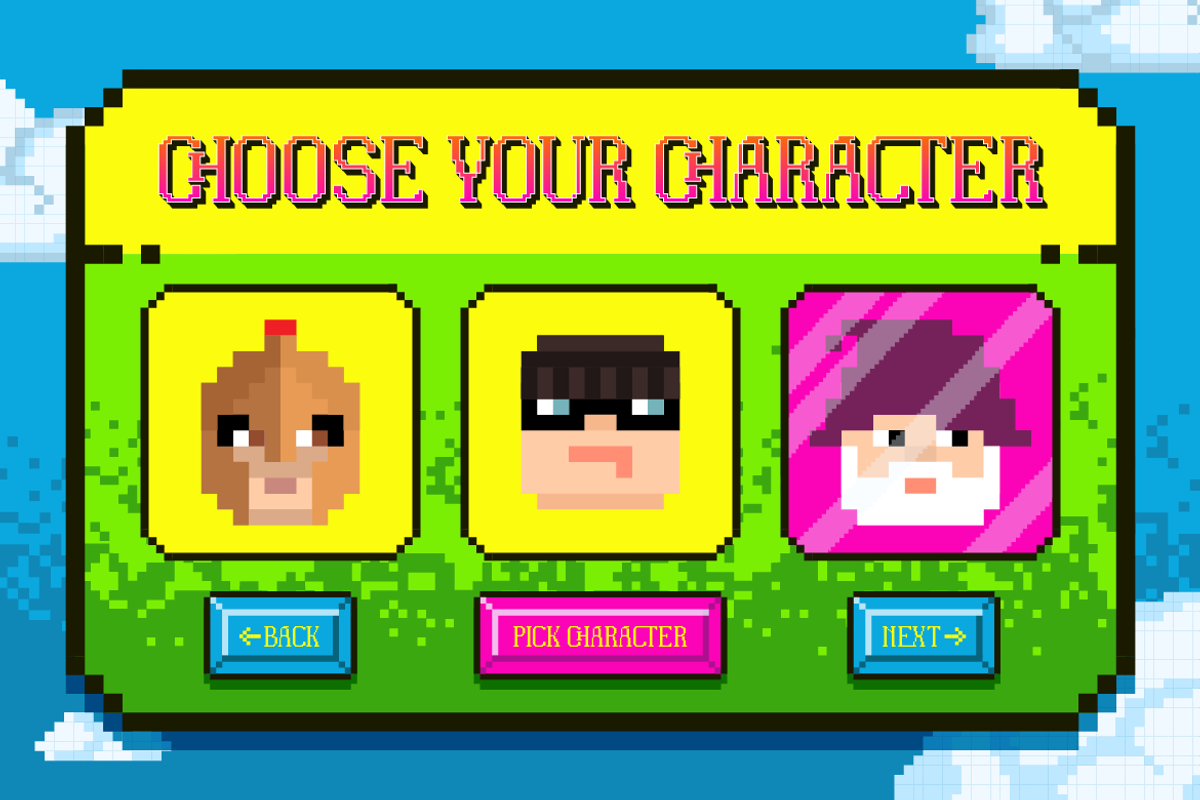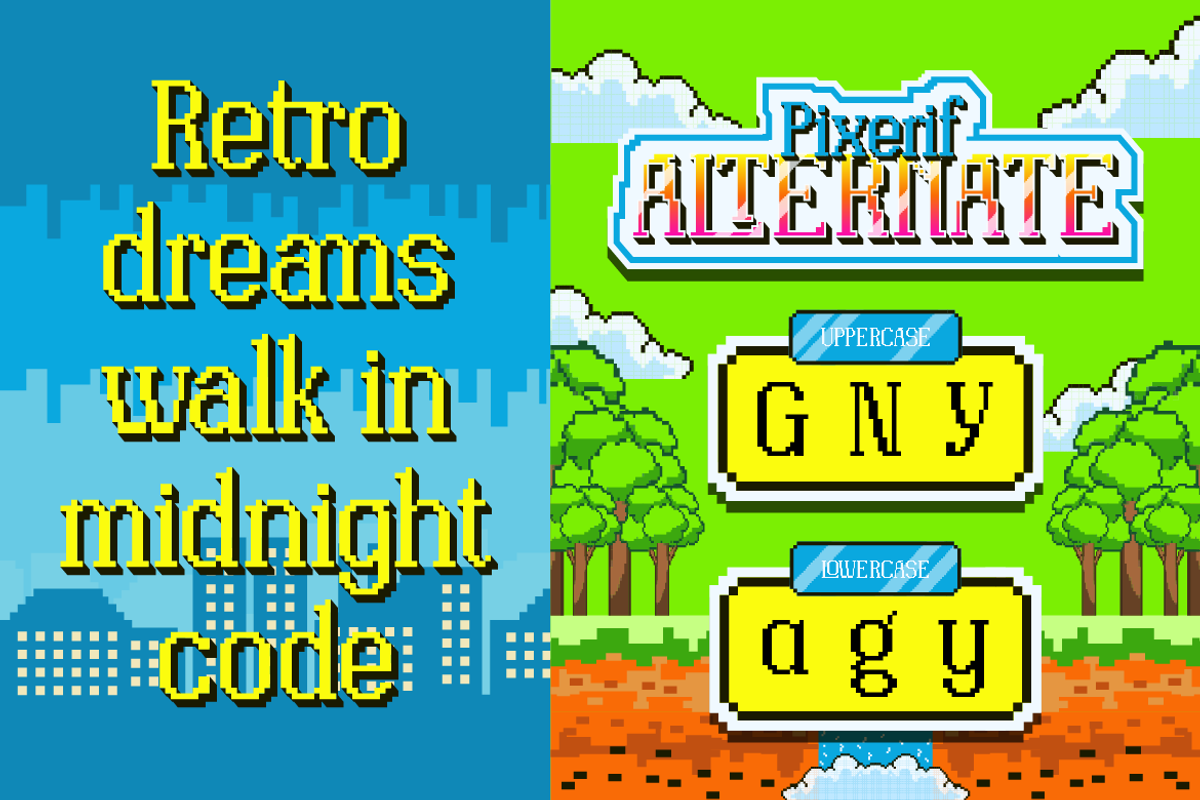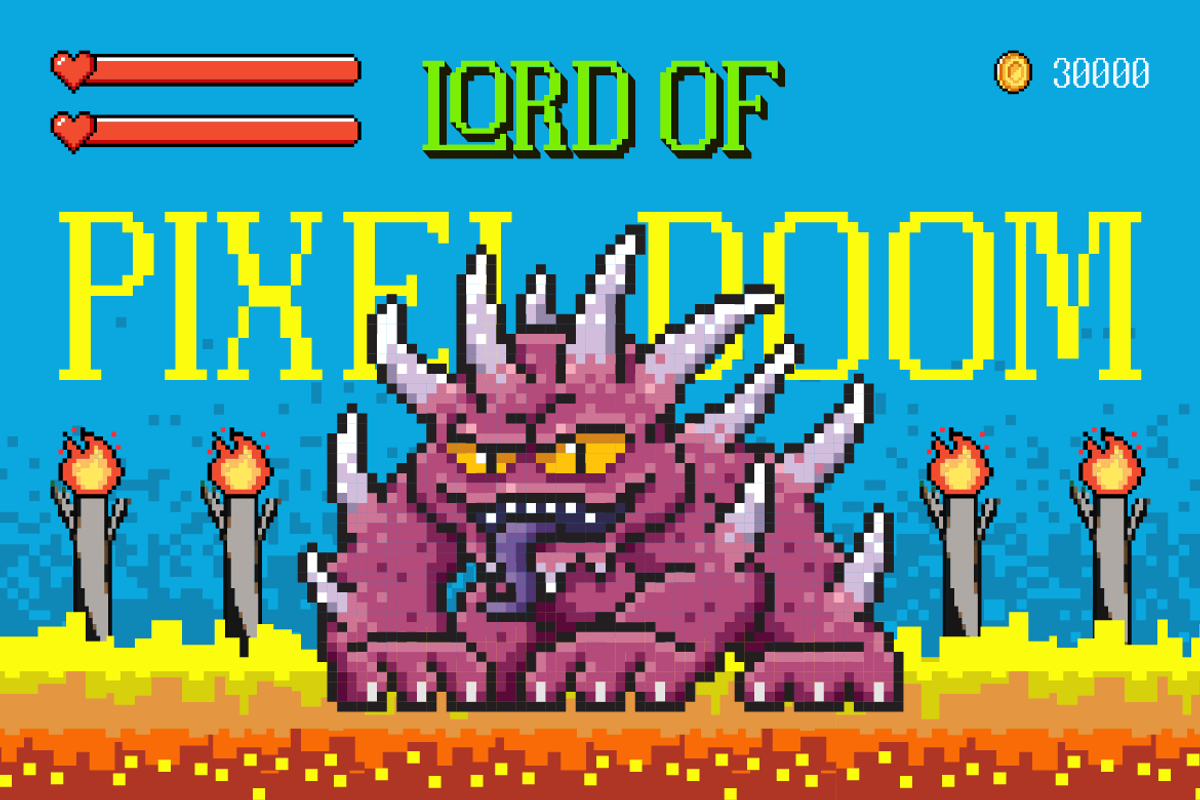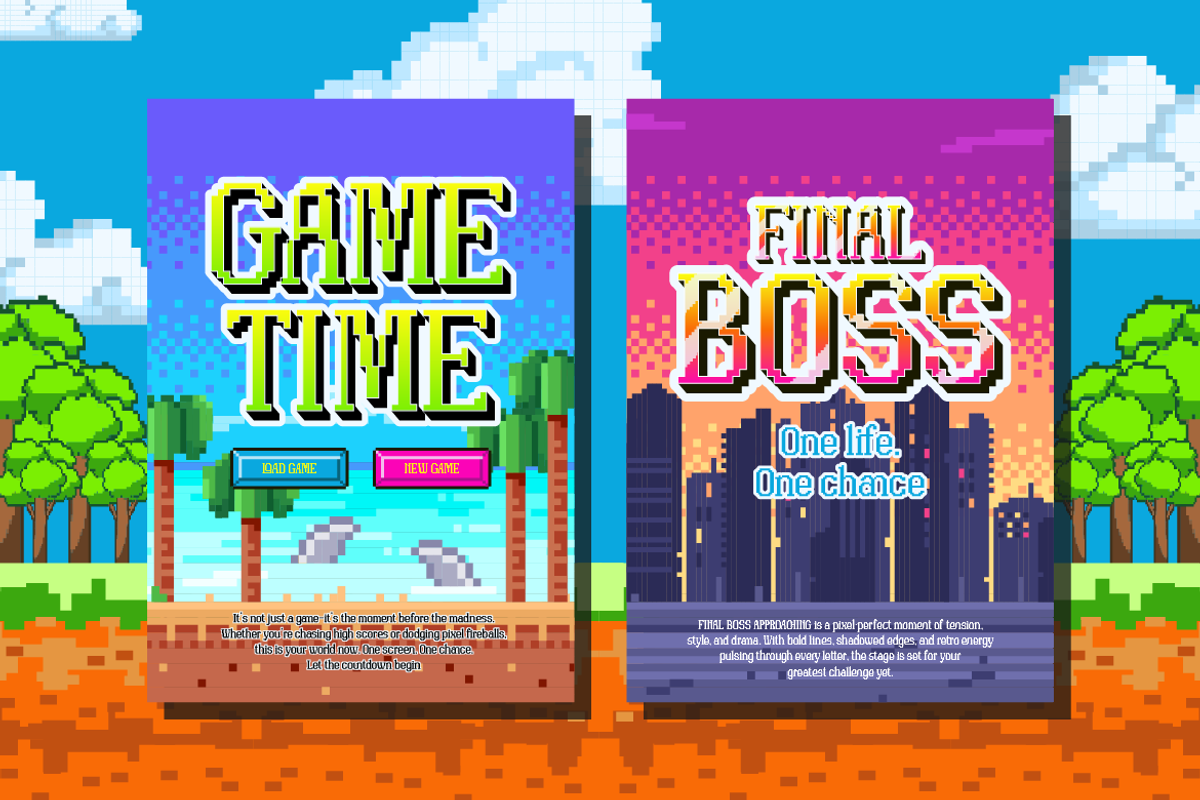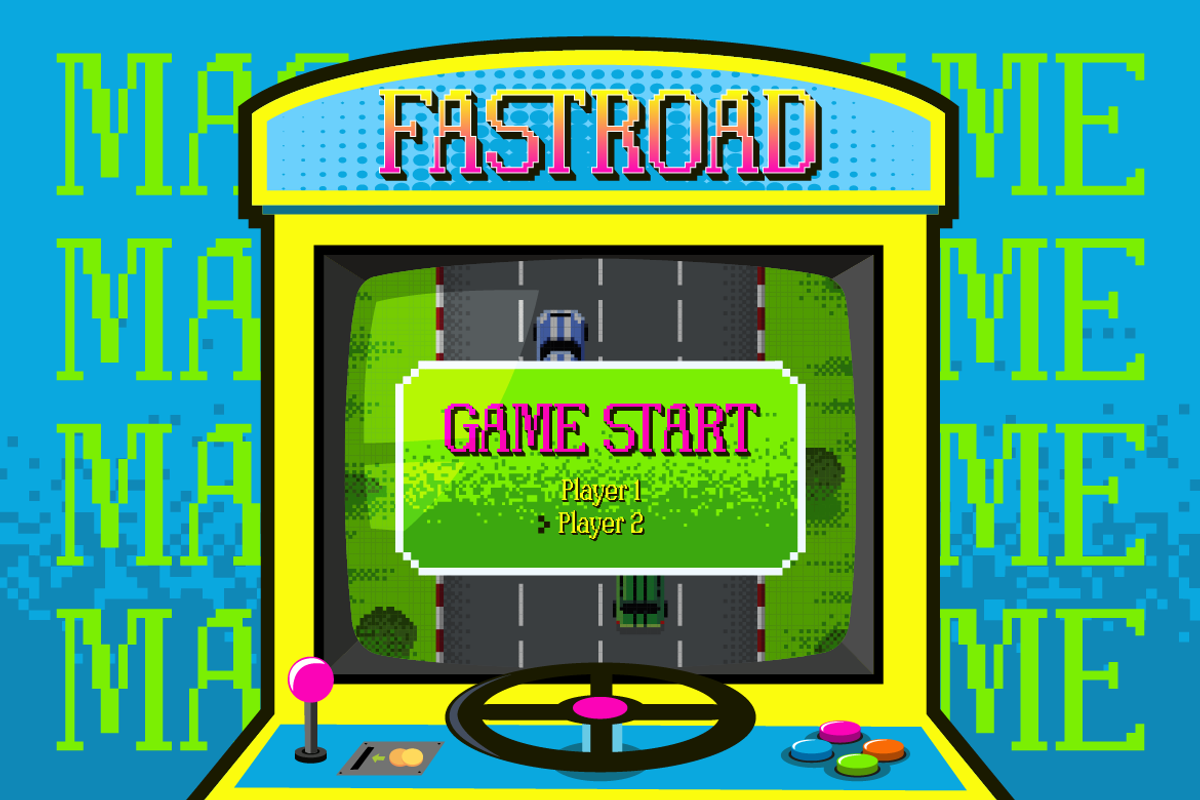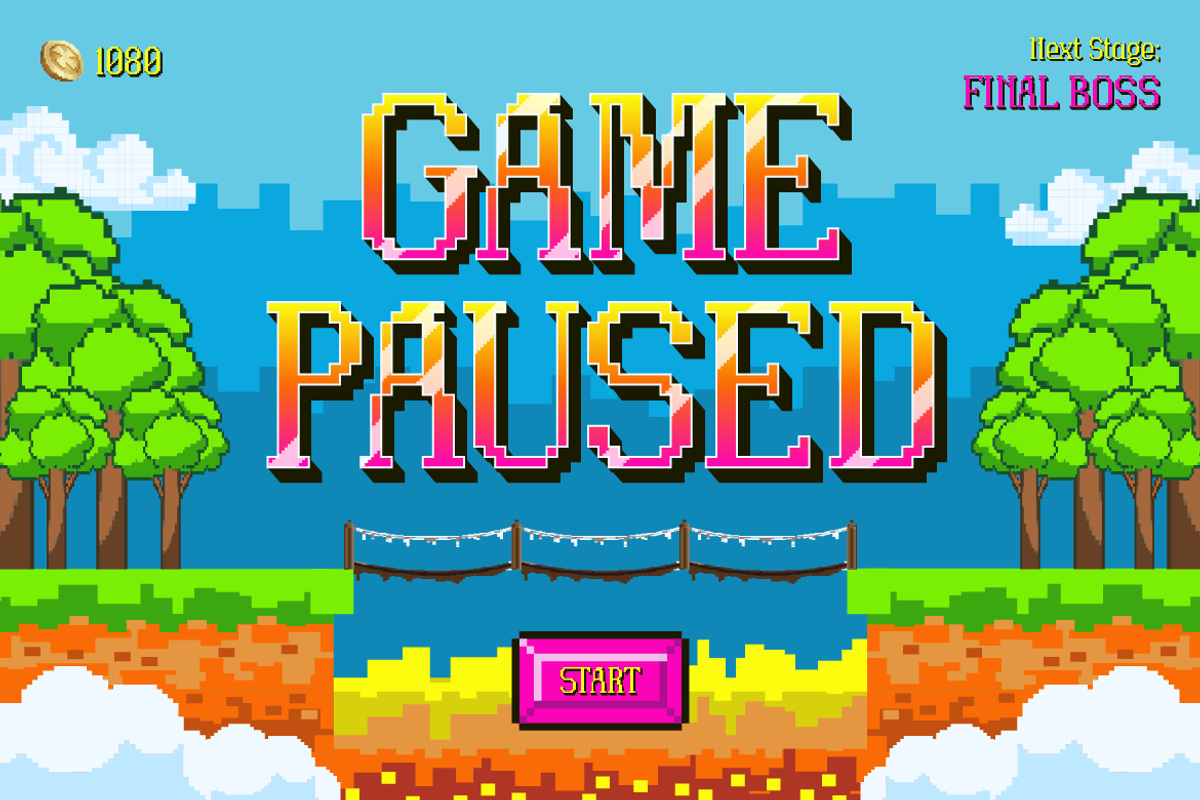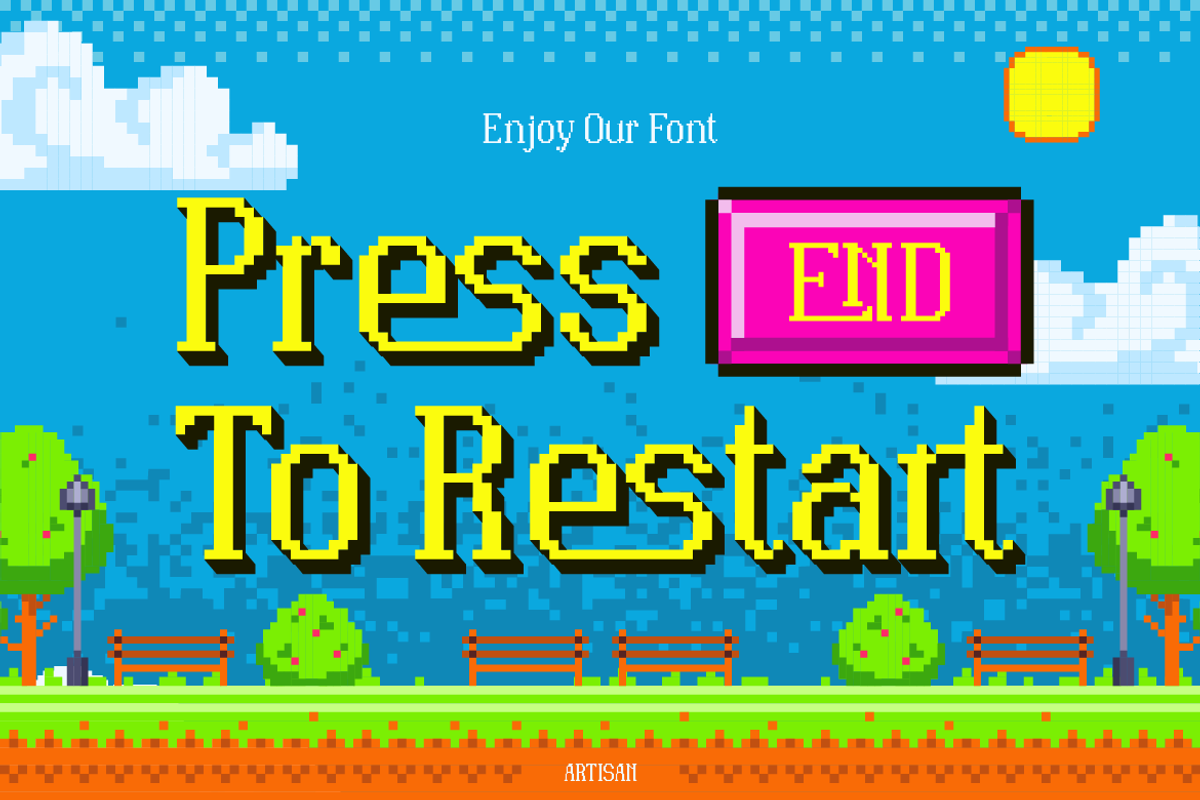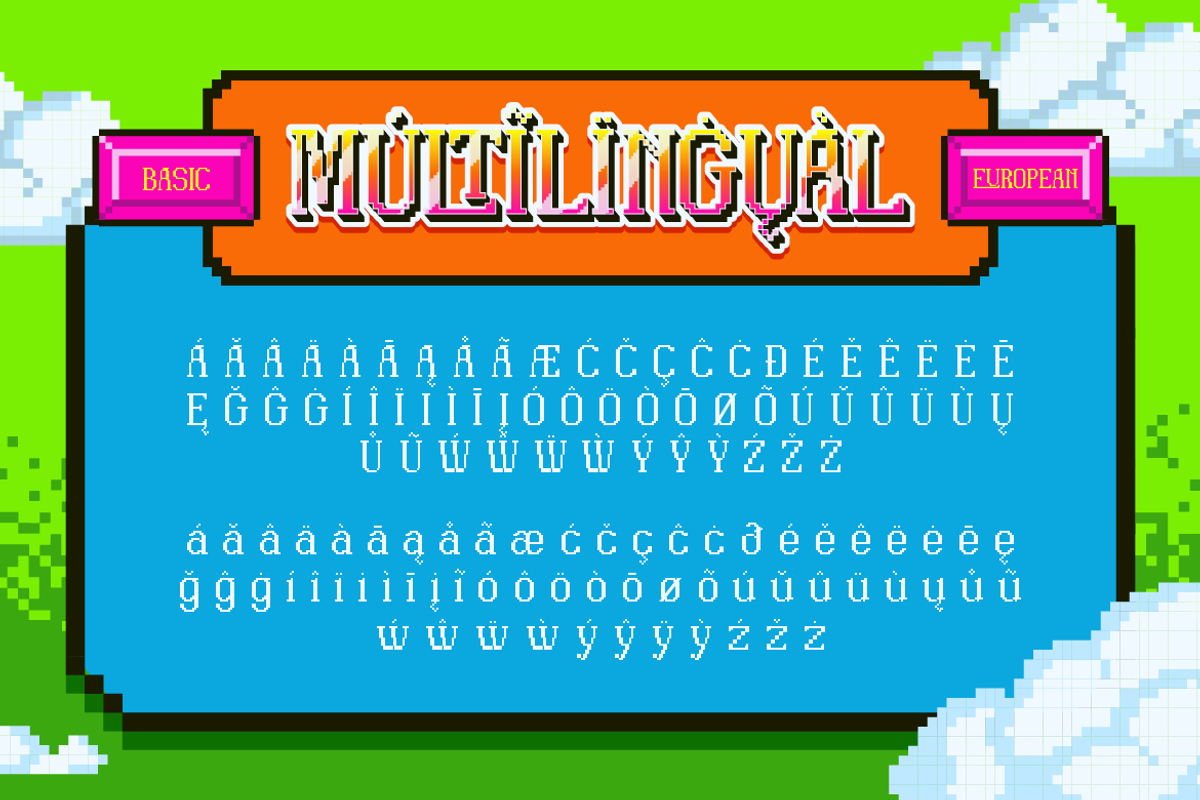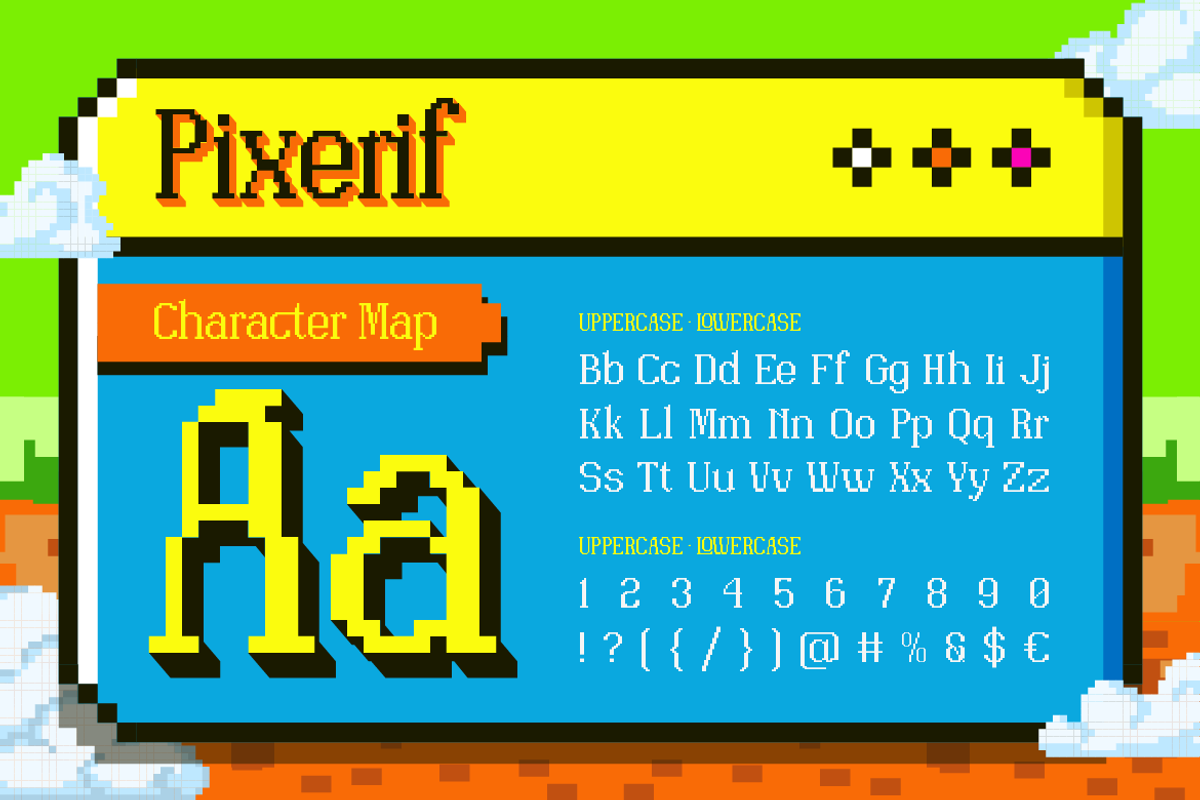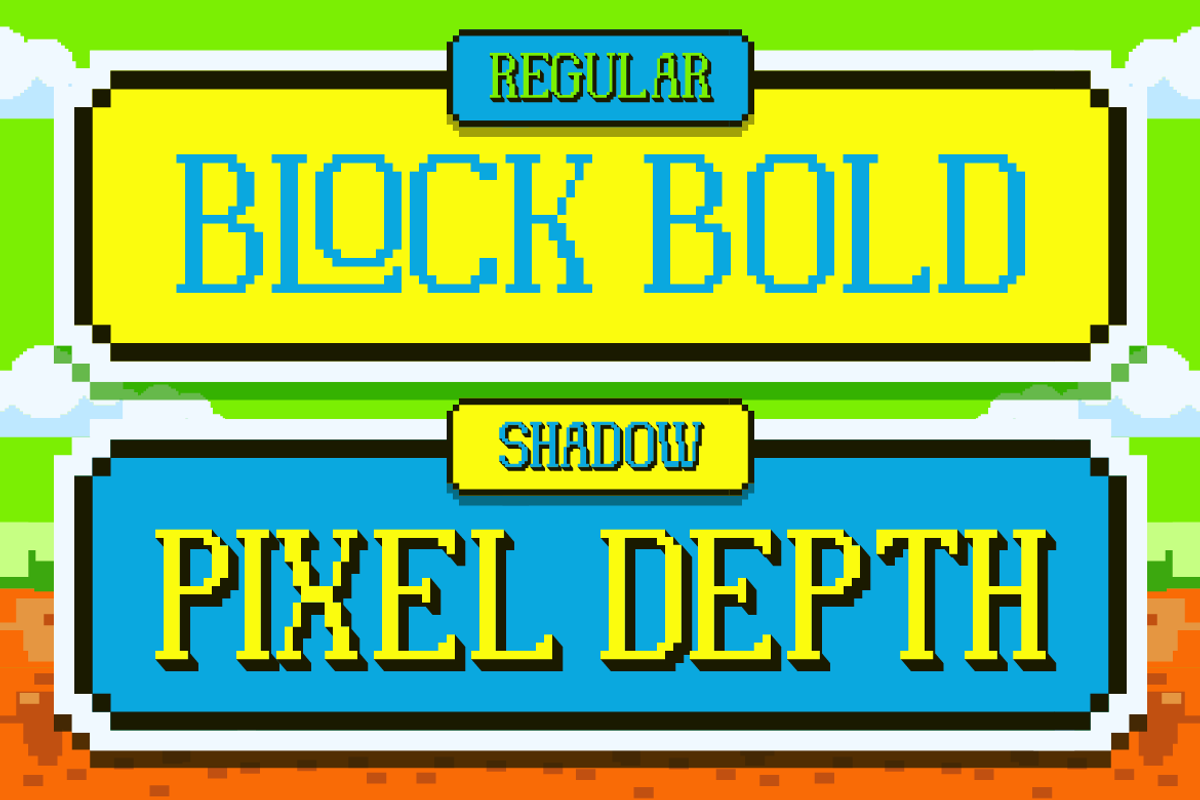
Pixerif - 8 Bit Gaming Font
Let the GAME on....
I'm so happy to show you my very first font called Pixerif. It's clearly inspired by the iconic 8bit games fonts; bright color, square pixel, clear line and fun.
Came in 2 style, Regular Style as a basic style to bring clear massage and Shadow Style to make the text standout as logo. Really easy to use or can be fun with combination of both style.